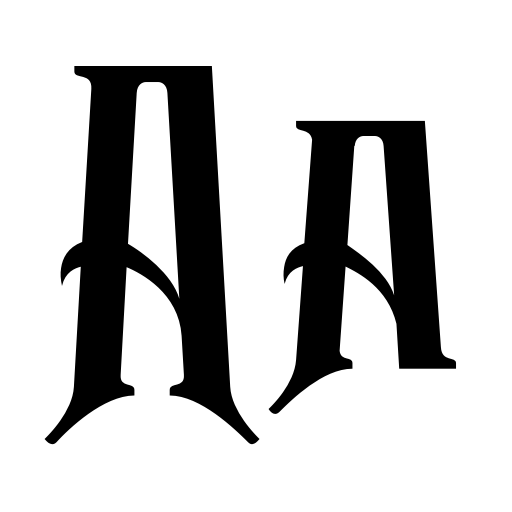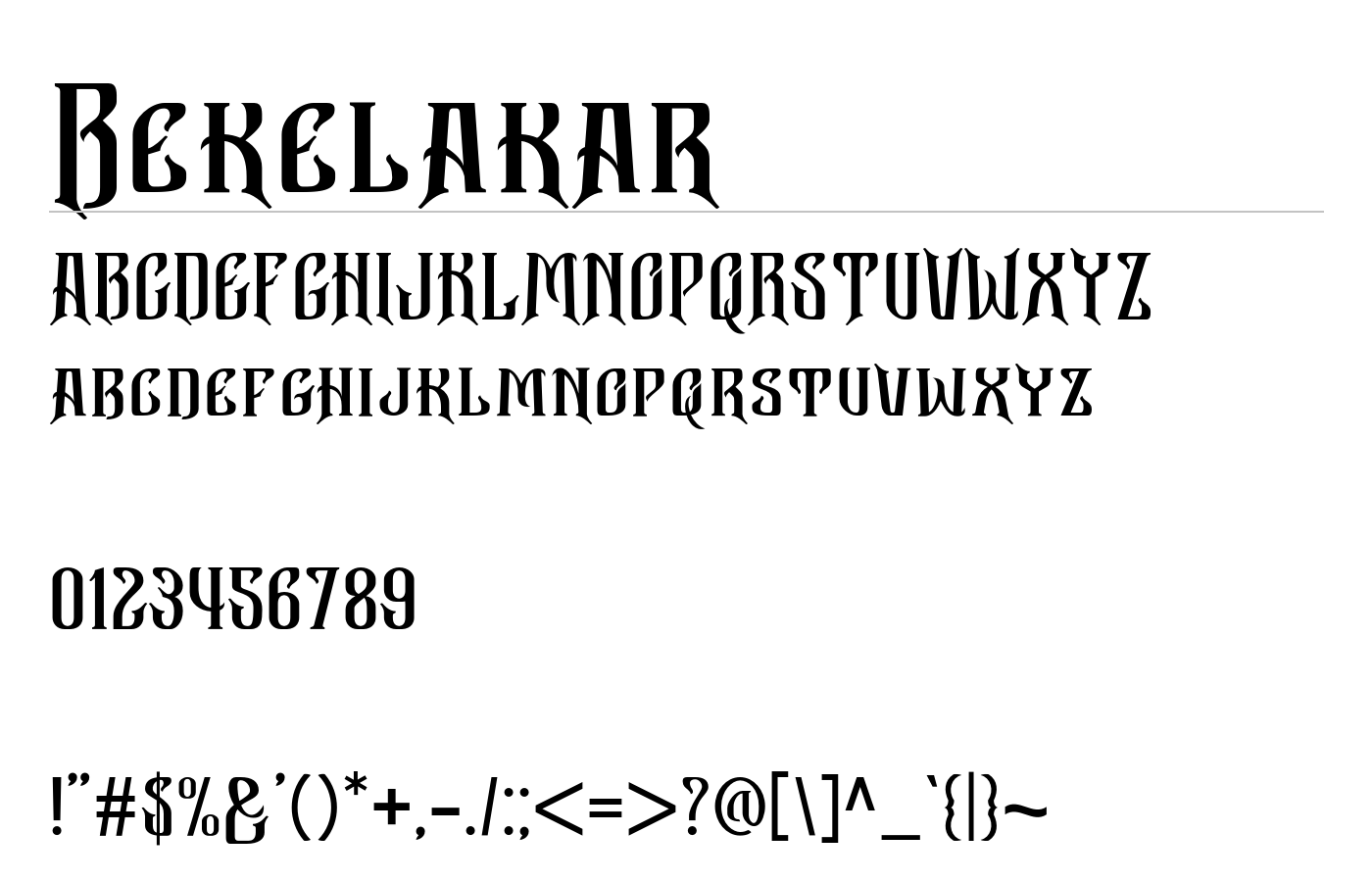
Bekelakar is a distinctive serif font with a gothic flair, featuring narrow, tall letterforms and sharp, angular serifs that evoke a vintage, medieval vibe. Its high contrast between thick and thin strokes, combined with ornamental details and a strong vertical emphasis, makes it ideal for creating bold, dramatic headlines, logos, and packaging that require a unique, historical touch. This font works especially well in designs seeking an elegant yet edgy personality, blending tradition with a hint of modern flair.
Bekelakar Font
About Bekelakar Font